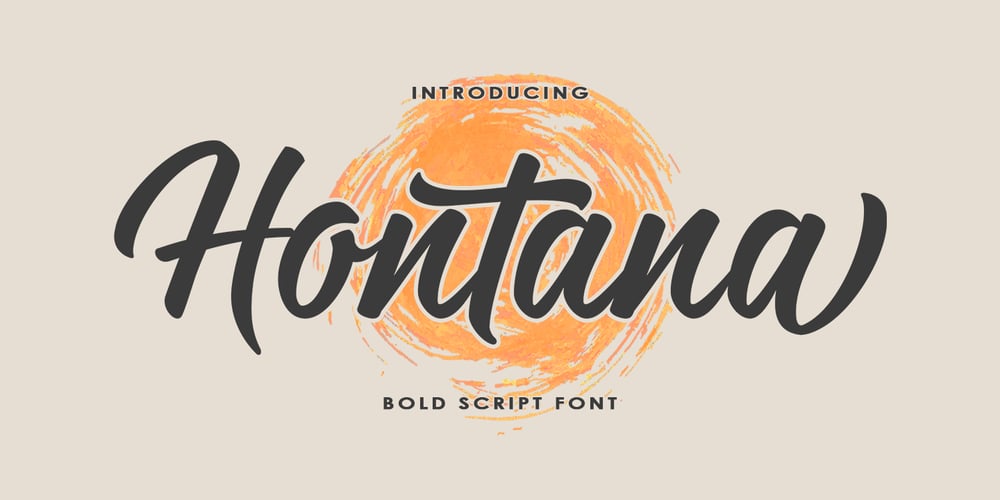
Hontana Font Family was designed by Muammar Kadafi and published by Attract Studio. Hontana contains 1 styles and family package options. INTRODUCINGHontana is a Stylish Modern Calligraphy Font with Casual Style that is absolutely great for your next creative project such as logos, printed quotes, invitations, cards, product packaging, headers, Logotype, Letterhead, Poster, Apparel Design, Label, and etc.This Versatile Font includes also support a Multilingual Characters. Making this Font a Swiss Army knife in your Font Library. It’s extremely fun to use as each word can be transformed to your liking.What are the main Features on This Fonts :Uppercase & Lowercase lettersNumbering and PunctuationsMultilingual SupportSimple InstallationWorks Well on PC or MacSupport Adobe Illustrator, Adobe Photoshop, Adobe InDesign, also works on Microsoft Word.Please kindly message us for any question or issue about our product. Hope you love it and Happy crafting!